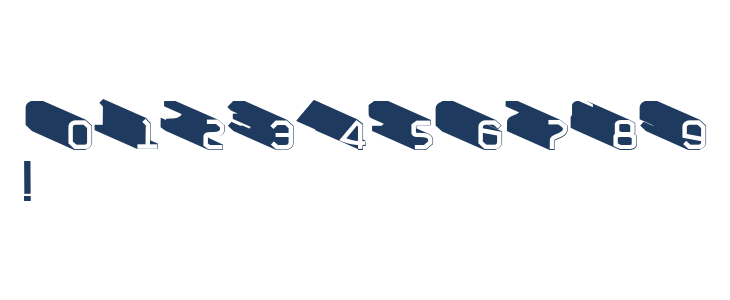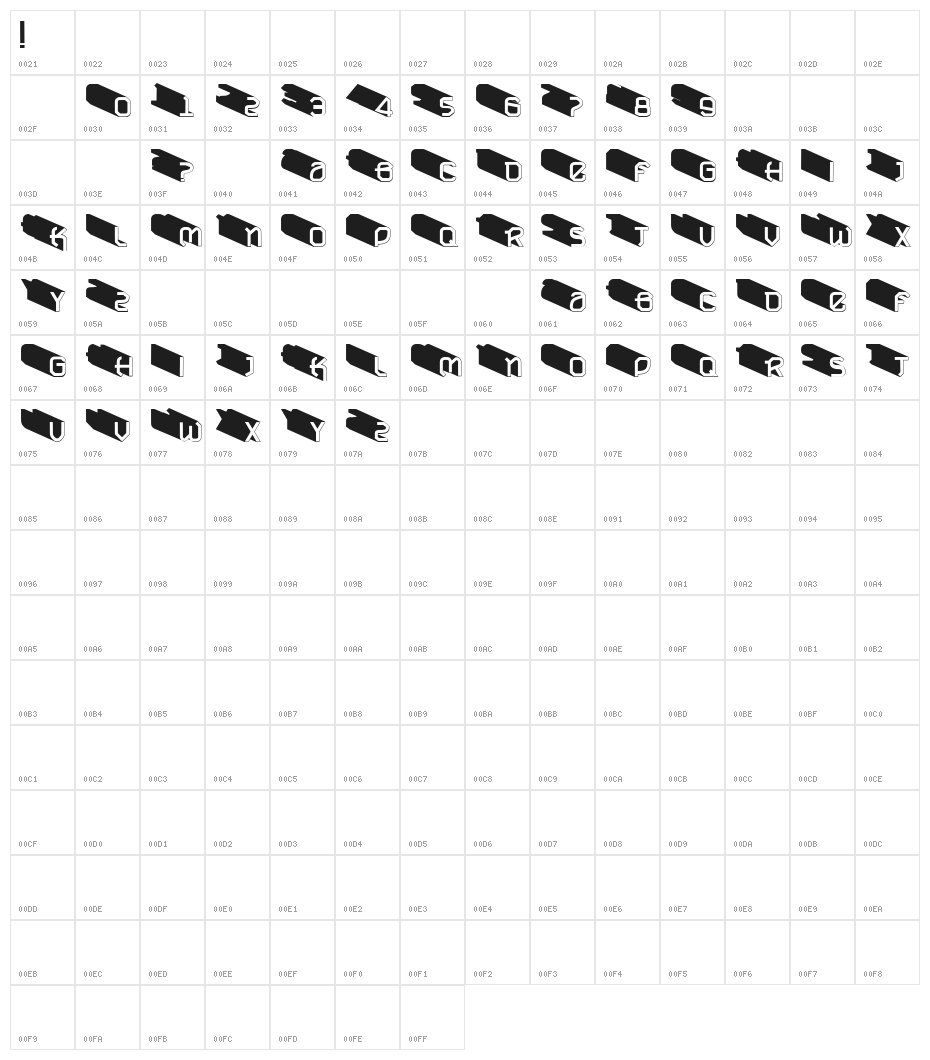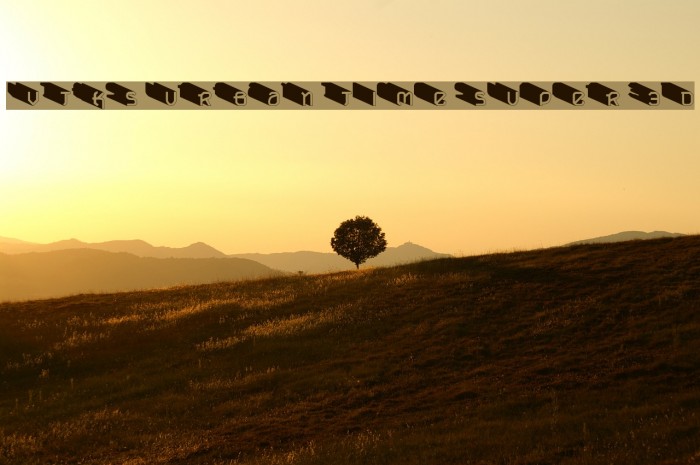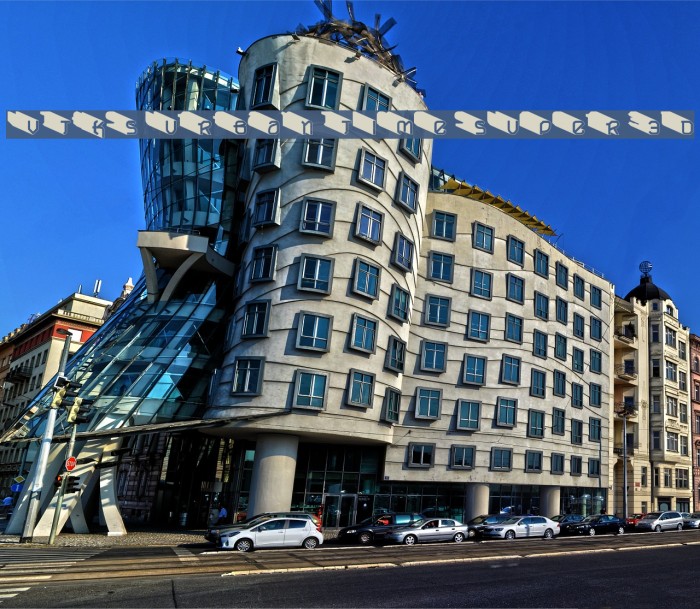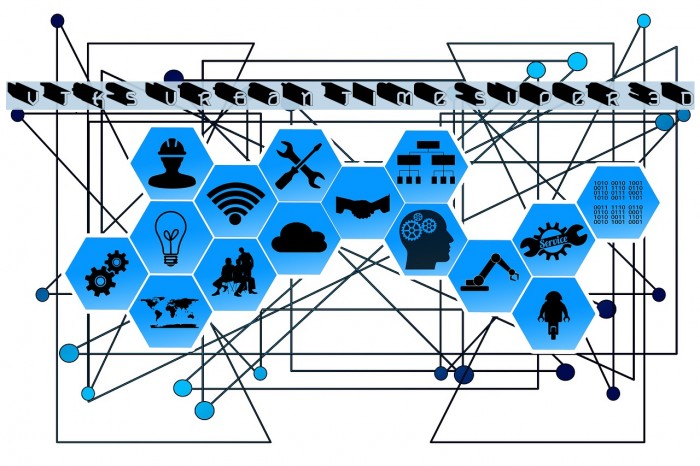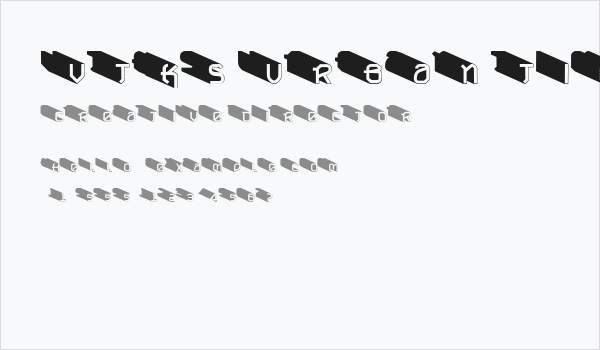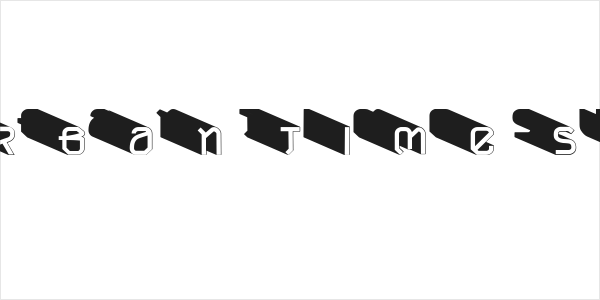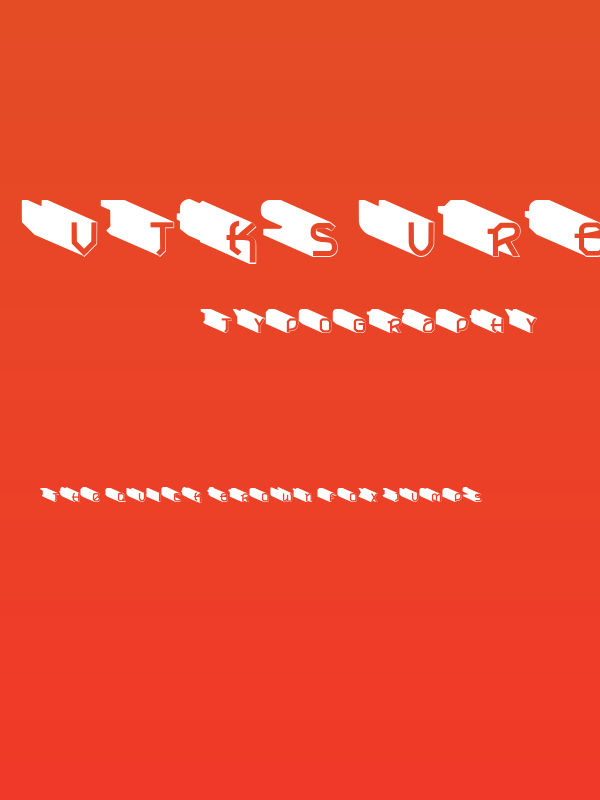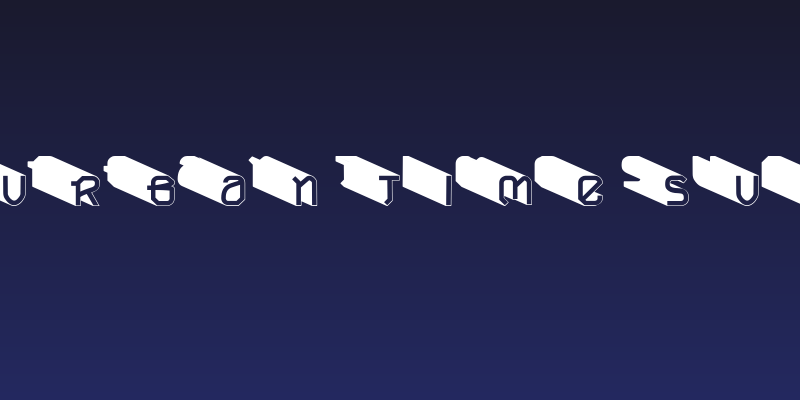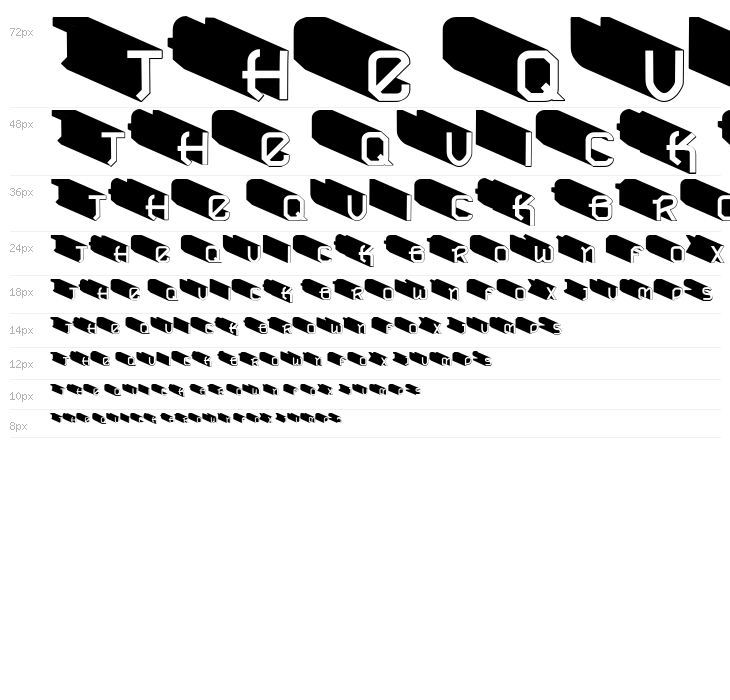
vtks urban time super 3d Font
vtks urban time super 3d Description
This font features a bold, three-dimensional design with a shadow effect that gives each character a dynamic and impactful appearance. The letters are uppercase and lowercase, with numbers and a selection of special characters. The style is distinctly modern and urban, with a playful yet edgy vibe. The characters have a solid black fill with a white outline, enhancing their visibility and making them stand out against various backgrounds. The font's unique 3D effect is achieved through a clever use of shadowing, which adds depth and dimension to the text. This makes it particularly suitable for projects that require a strong visual impact.
Proposed ProjectsIdeal for urban-themed posters, music album covers, streetwear branding, and digital art projects.